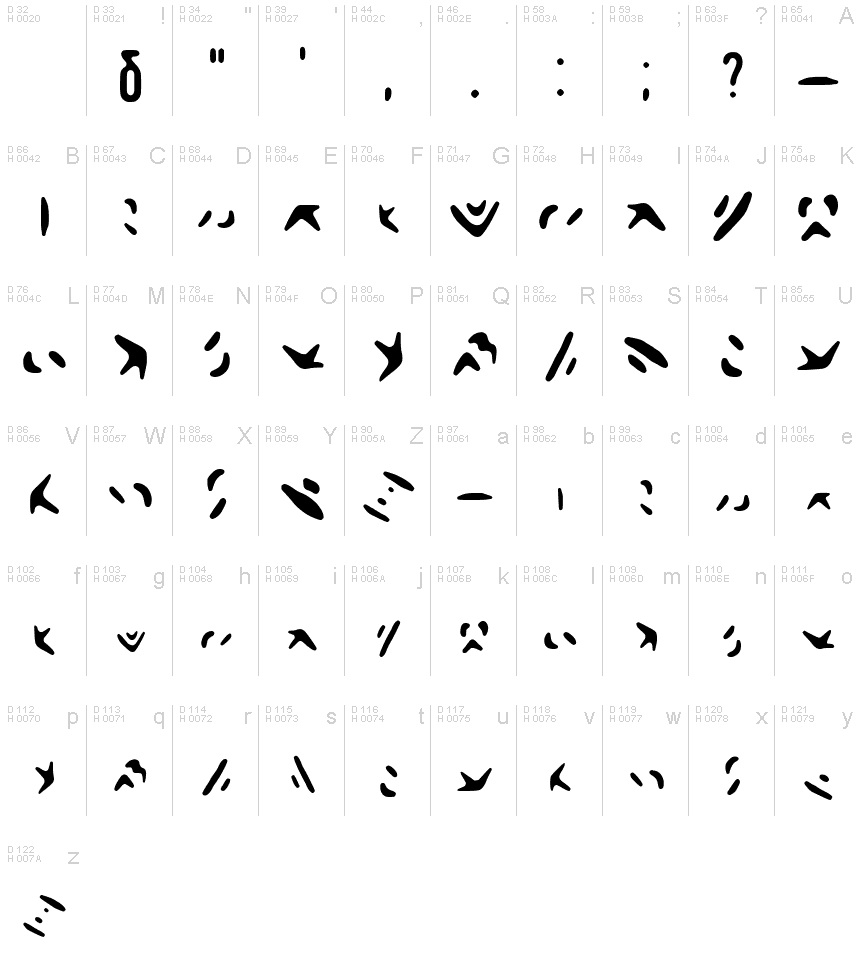
Full Cube Kindness Font Regular
Full Cube Kindness font is a creative dingbat font designed by Angie Marais.
Angies_Dream Kindness Font to the main brain.
Use our 22bit visual binary code for kindness purposes or dreams in code.